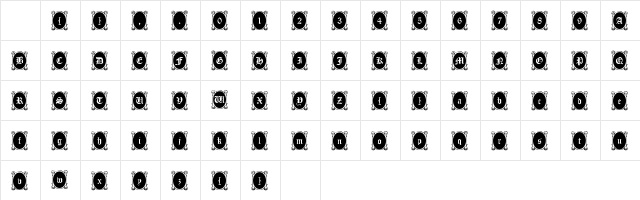
Looking Glass Regular
Design Context for Looking Glass Typeface
Looking Glass is a composed and adaptable typeface that performs quietly and consistently across a wide range of design contexts.